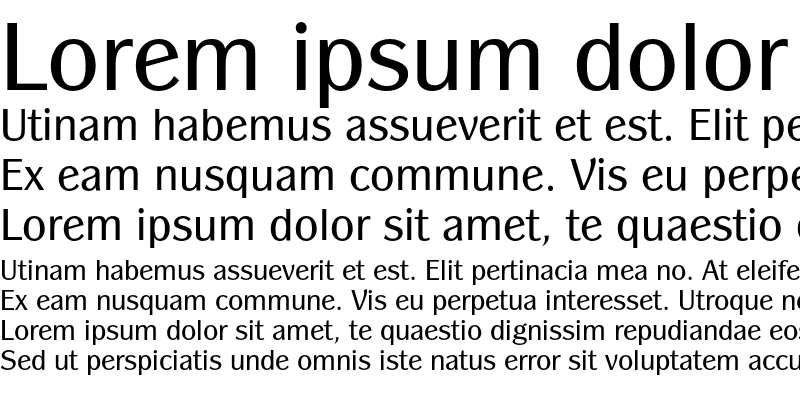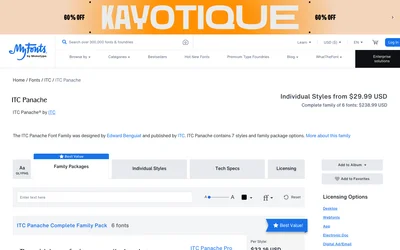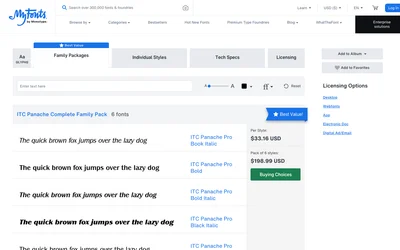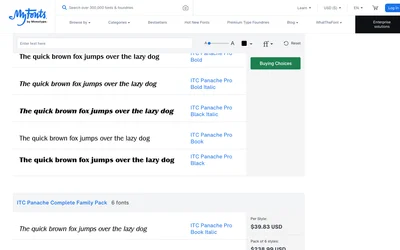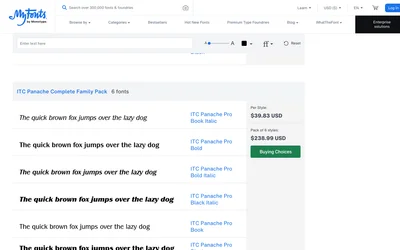
Croogla vs Panache
Croogla and Panache are both display typefaces sharing a modern foundation. Where Croogla leans geometric, bold, Panache brings high contrast, display. Compare which suits your Branding project.
Panache
High Contrast
ModernElegant
Display
| Feature | Croogla | Panache |
| Classification | display | display |
| Language Support | latin, latin-extended, cyrillic | latin, latin-extended |
| Source | 4th february | ITC (International Typeface Corporation) |
Consider: Panache
- high contrast, display design character
- Suited for Editorial and Advertising
- From itc